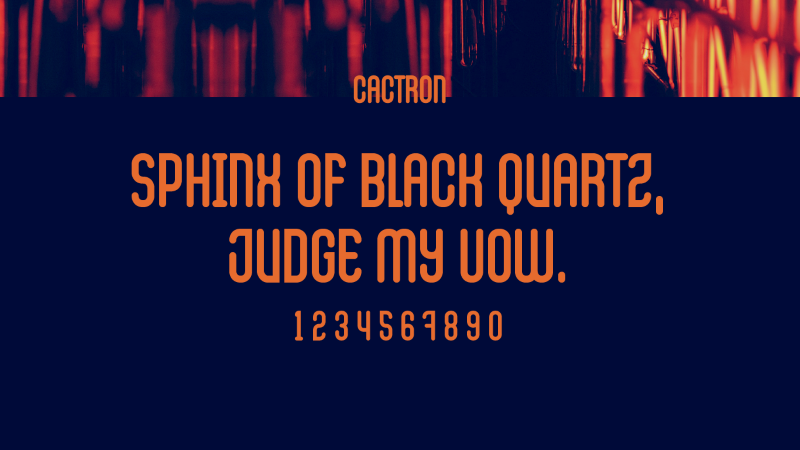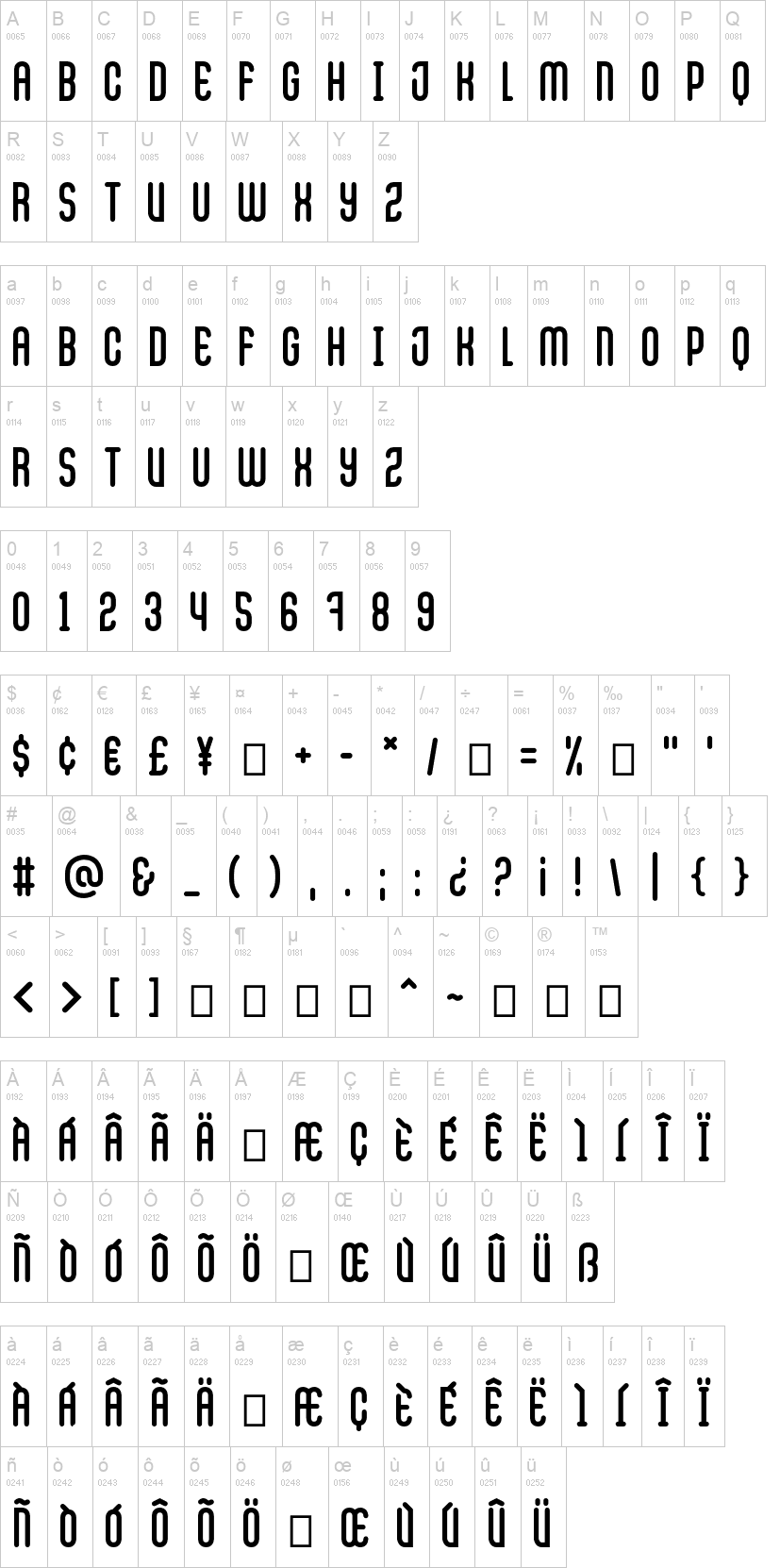
Cactron-Italic.otfCactronBold.otfCactron-Bold-Italic.otfNote of the authorInspired by city nights and neon lights, Cactron is a Sans-serif typeface family, showing mostly roundness and curves in its angles, while maintaining consistent strokes in almost a modular way.
Cactron has enough diacritics and special letters to support English, Spanish, French, Portuguese, German and Italian.